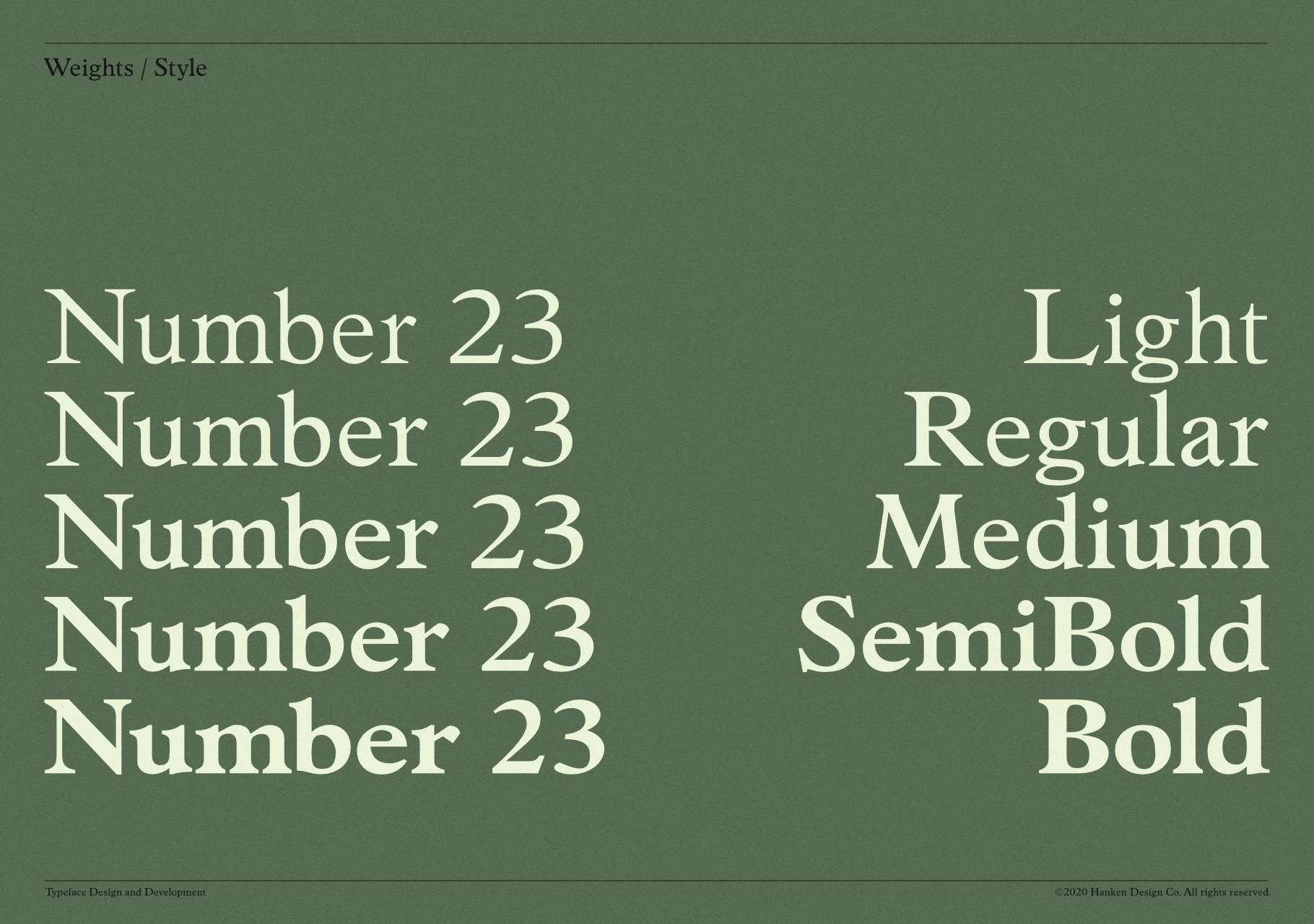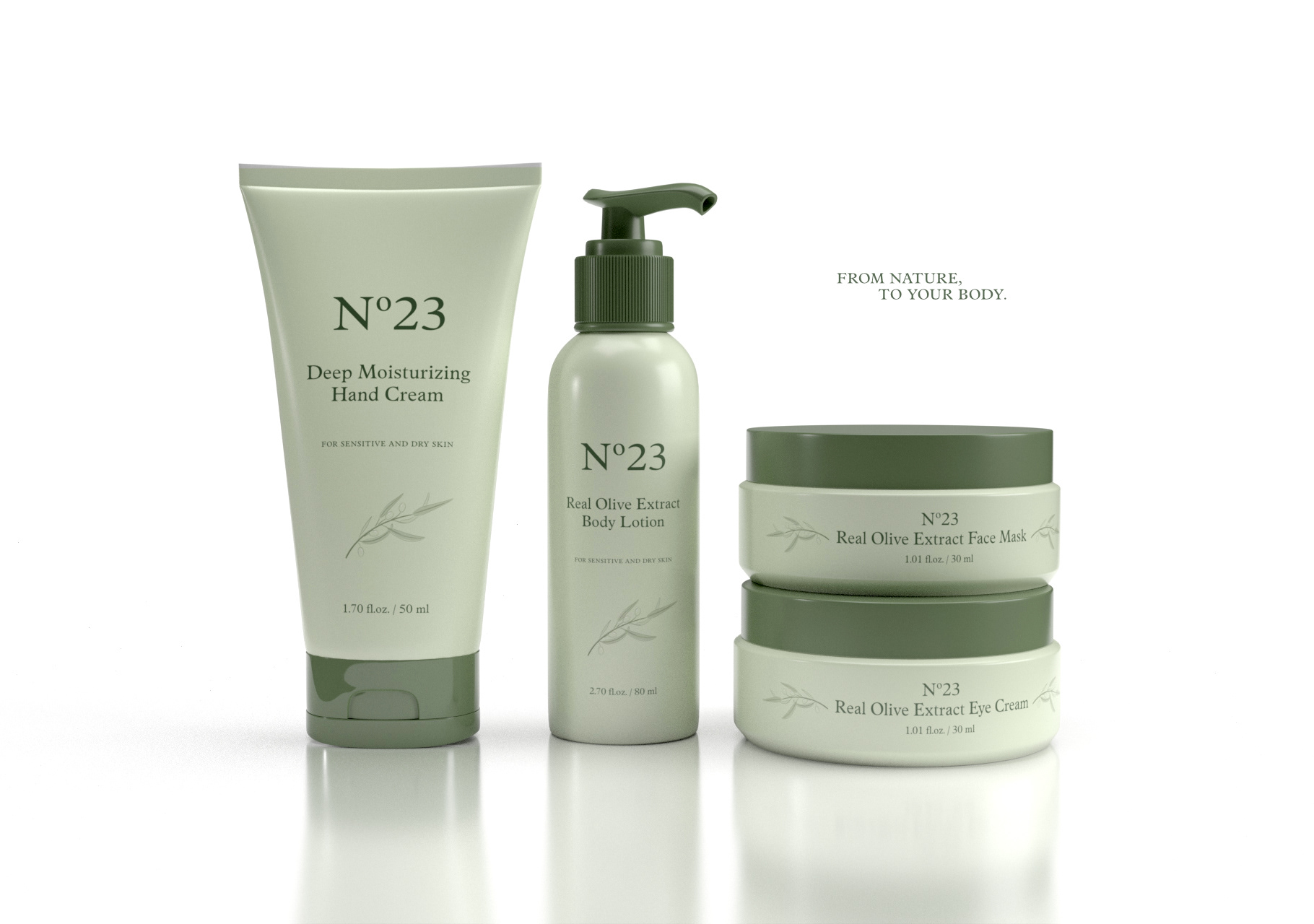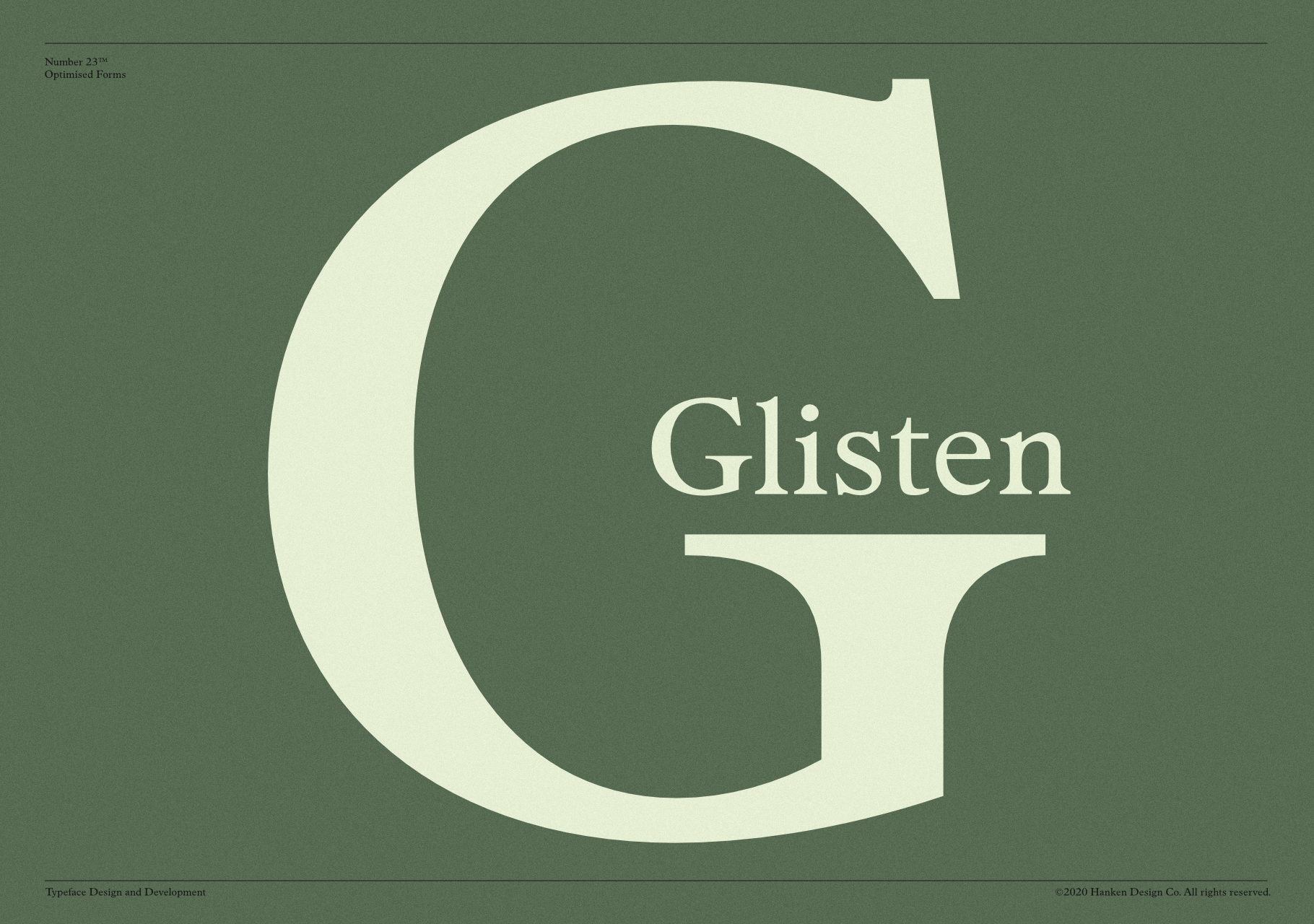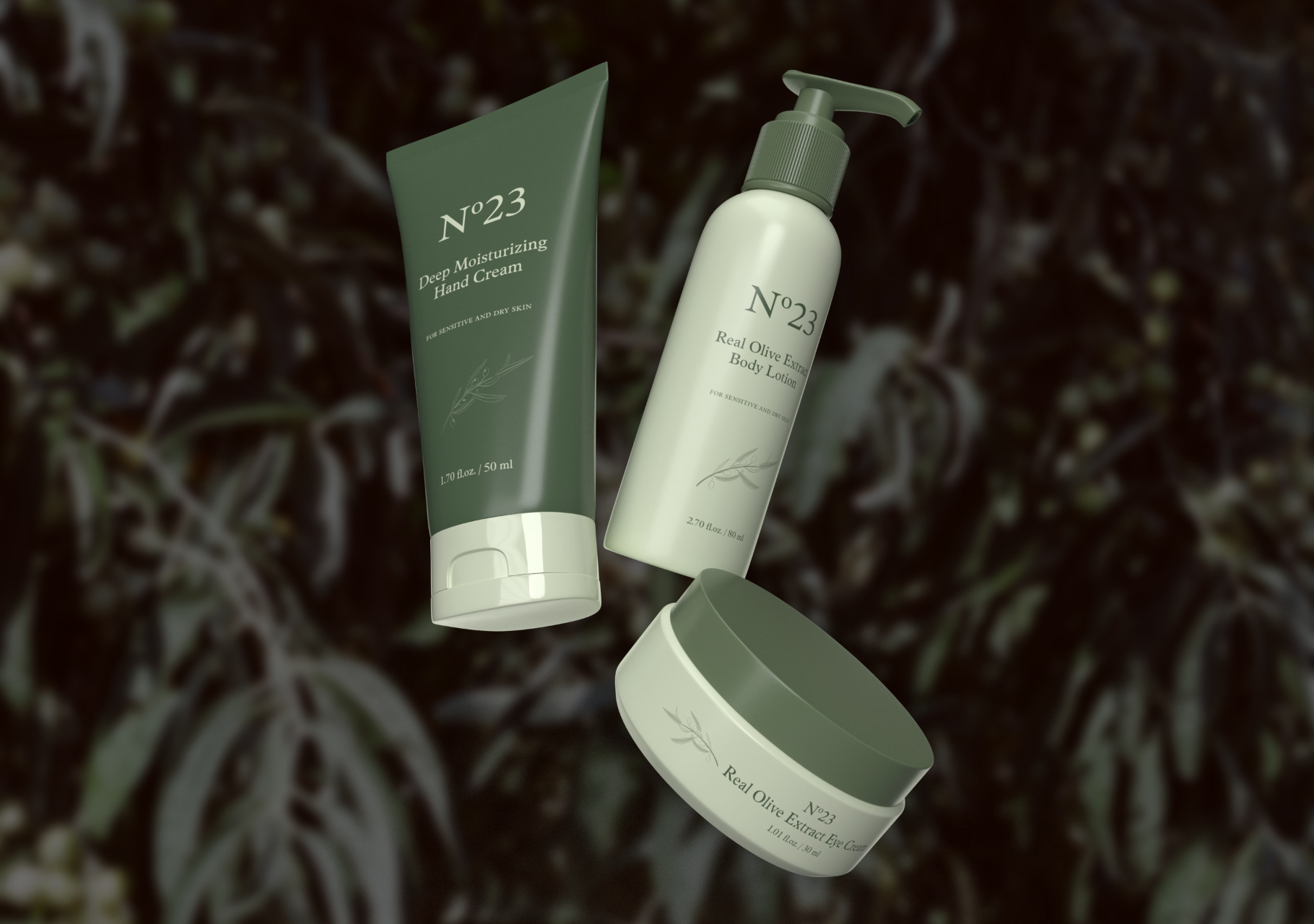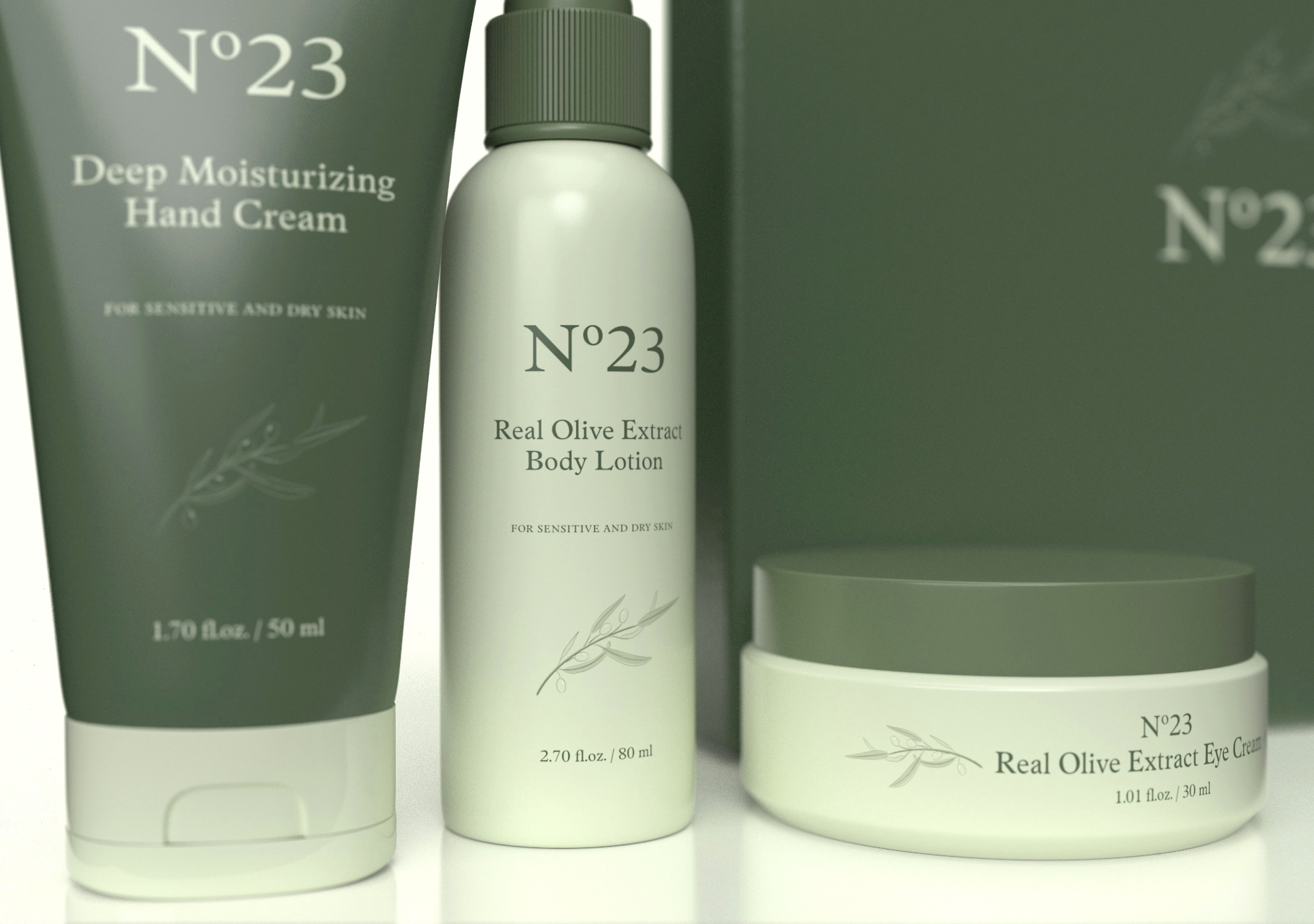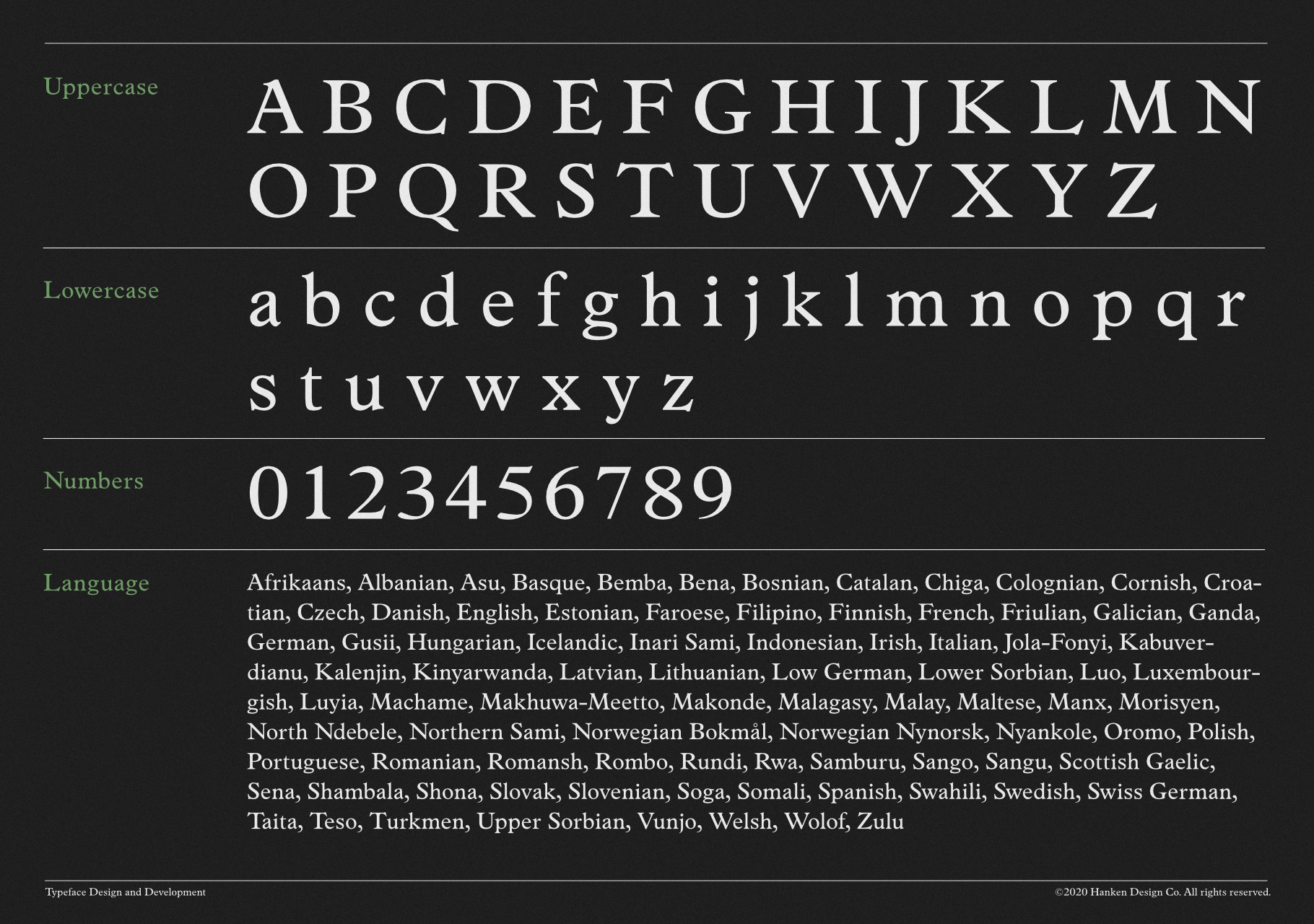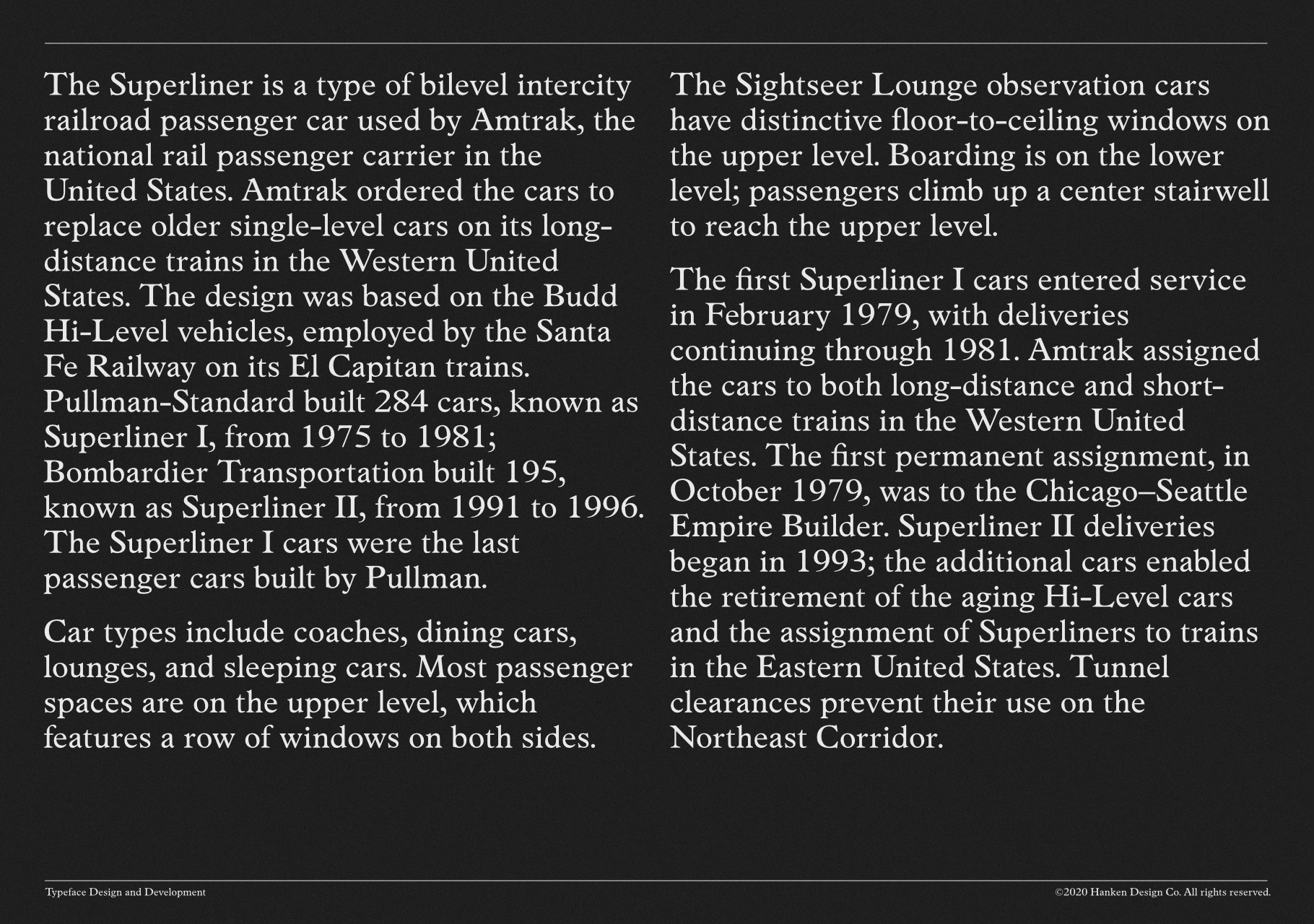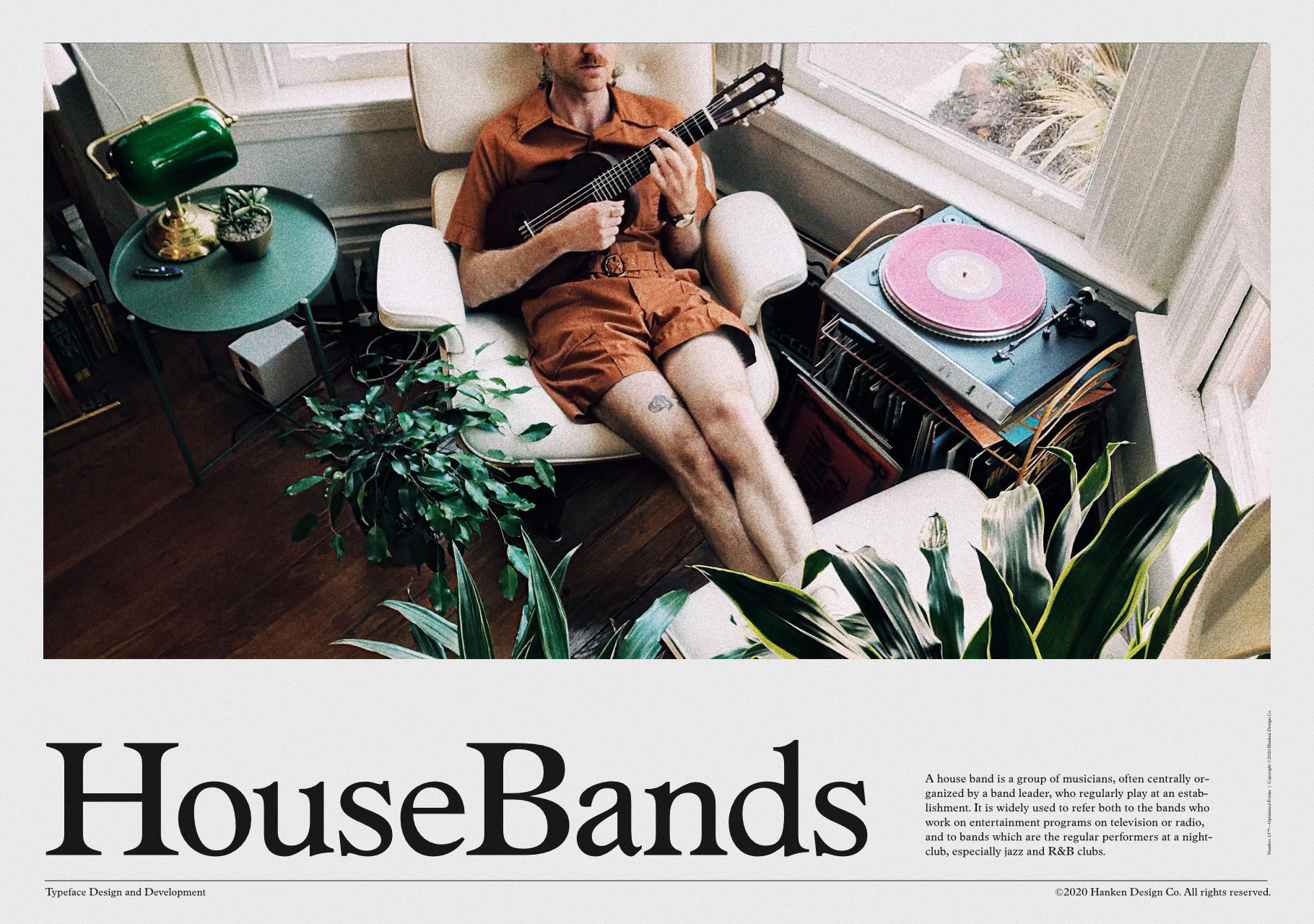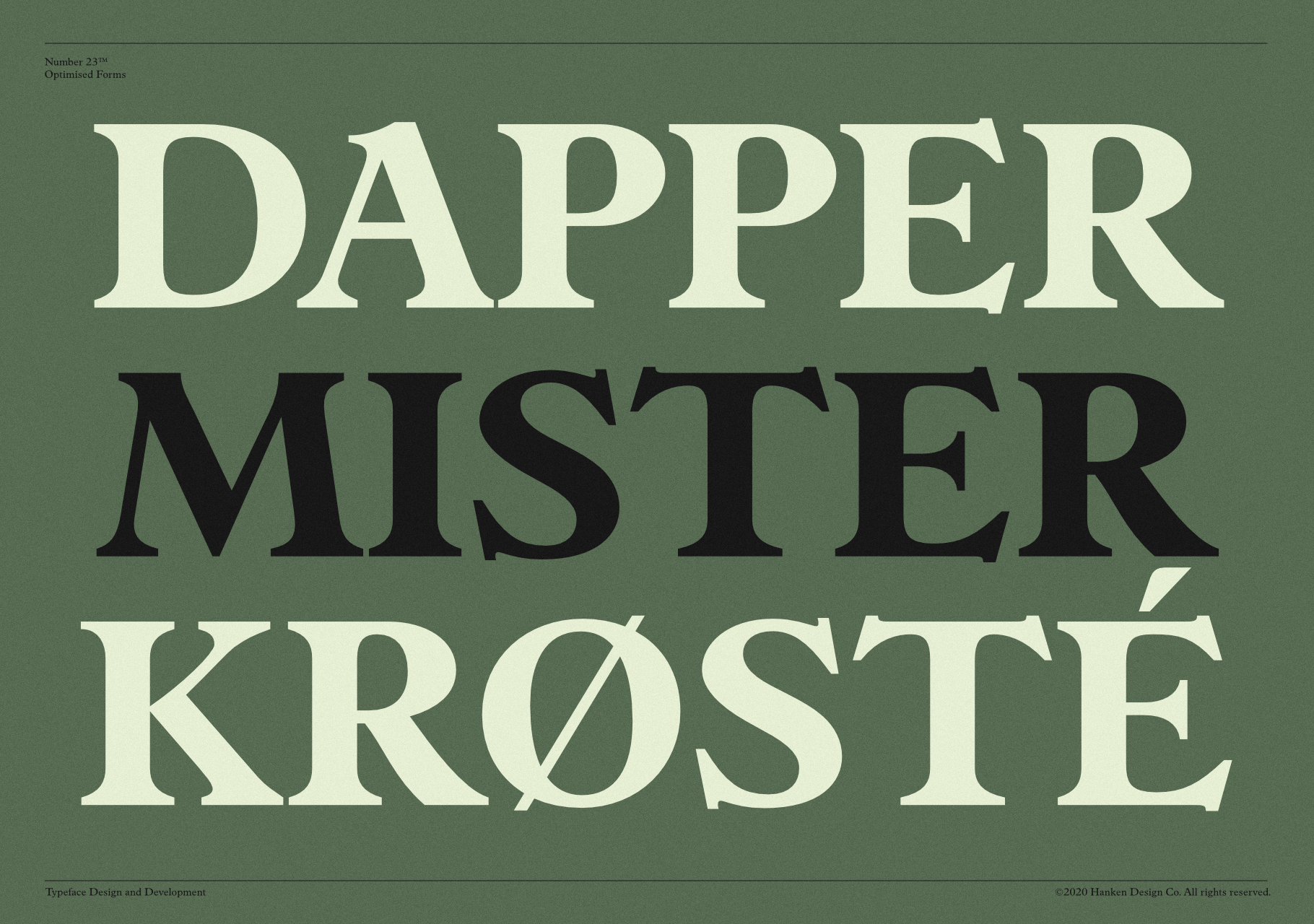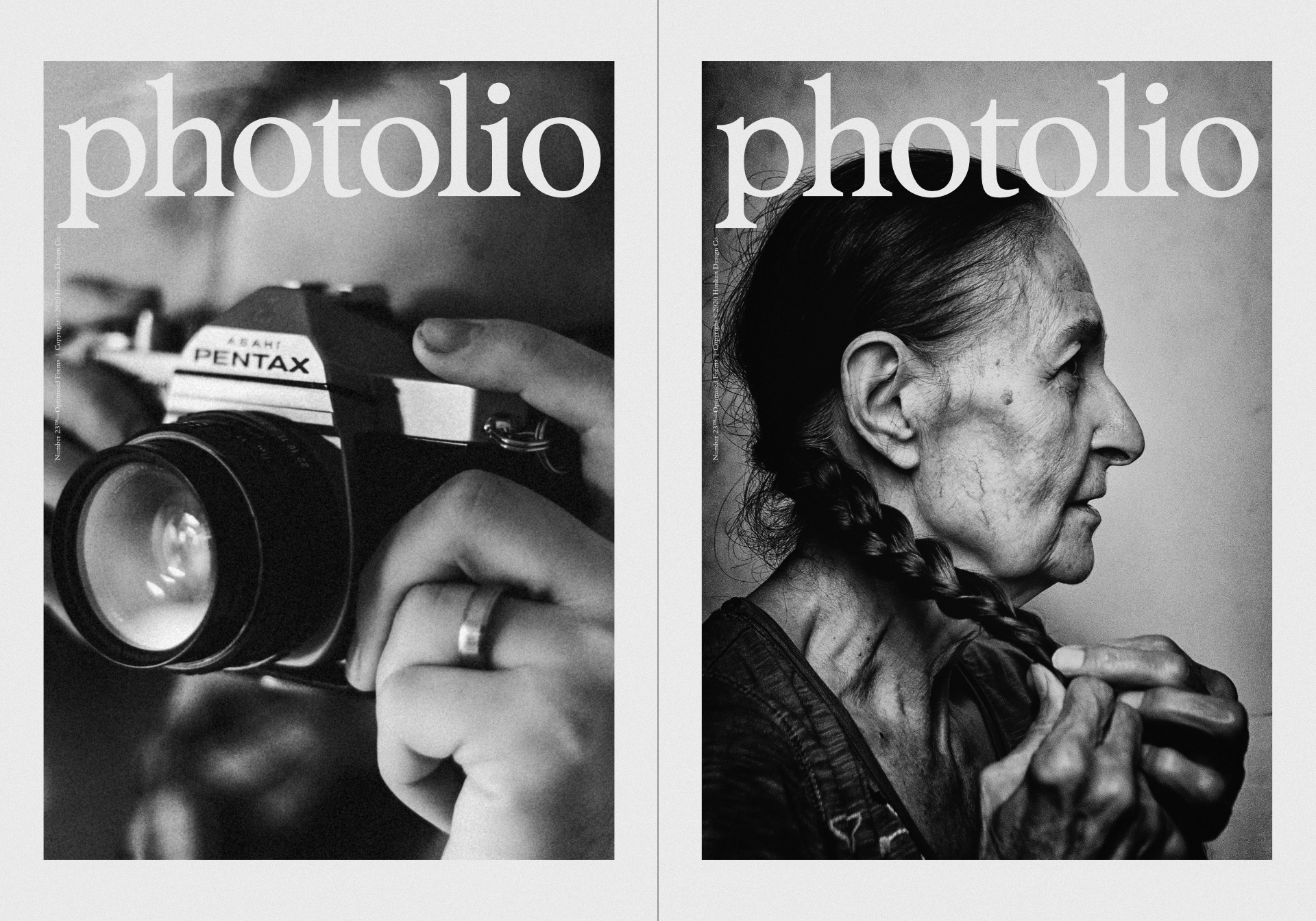
Number 23 is a serif typeface that was imbued with character in mind rather than perfection. It is great for poster headlines and magazine headline text. The Regular weight is suitable for body text and captions.
Class: Serif, Geometric